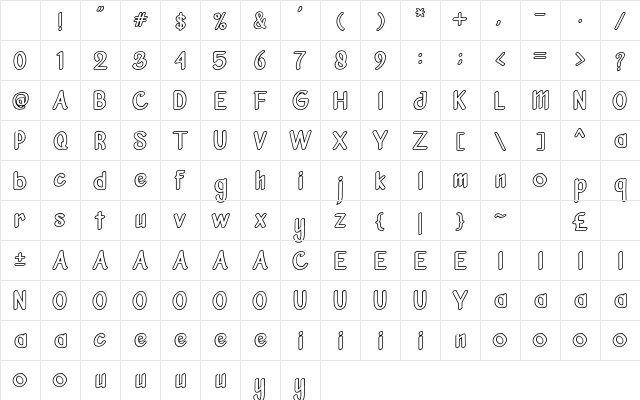
Vanjar Free is built around its visual character rather than neutral utility - its distinctive forms are designed to make an impression at display sizes.
Font Pairing: Pair with a clean neutral sans-serif for body copy to let Vanjar Free's character lead without overwhelming the composition.
Pro Tip: Use Vanjar Free exclusively at display sizes - it was designed to be seen, not read at length. Let a neutral companion handle body copy.